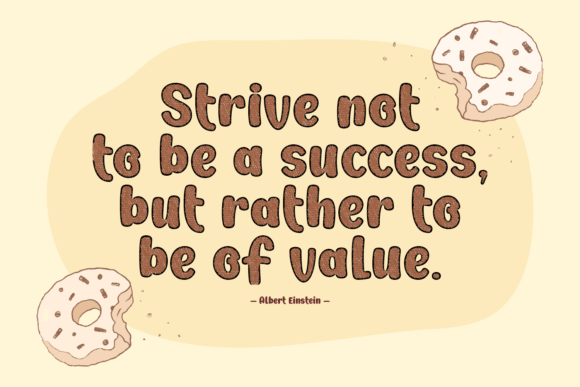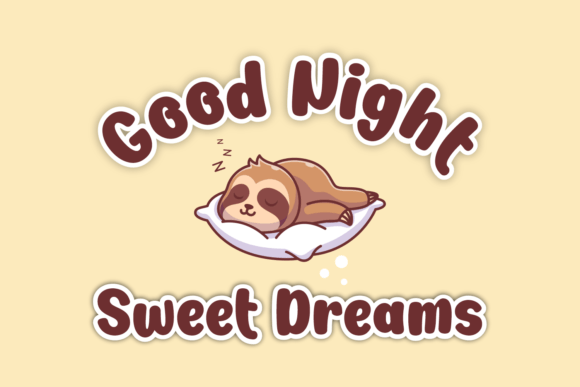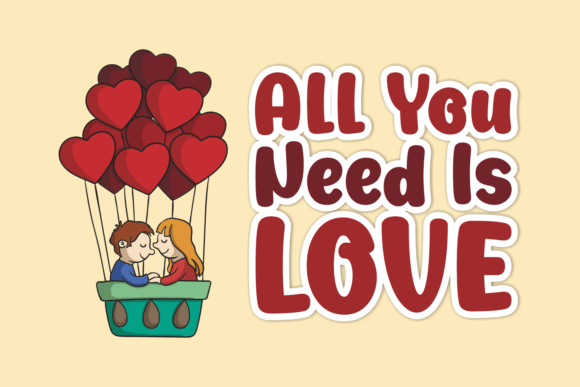
Introducing Brouny Macker Font: The Perfect Hand-Drawn Touch for Your Designs
In the world of digital design, sometimes a personal touch can make all the difference. That’s where the Brouny Macker font comes in – a charming, hand-drawn typeface that adds a playful and rustic feel to any project. Whether you’re a designer looking for a unique font to elevate your branding or a crafter seeking a distinctive style for your DIY projects, Brouny Macker is the perfect choice.
The Charm of Hand-Drawn Typography
Brouny Macker is more than just a font – it’s a piece of art. With its hand-drawn origins, this font exudes a sense of warmth and personality that’s hard to replicate with digital fonts. Each letter has been carefully crafted to give your designs a personal, handcrafted feel that’s sure to capture the attention of your audience. Whether you’re creating logos, product packaging, greeting cards, posters, or invitations, Brouny Macker adds a touch of organic charm that’s sure to make your designs stand out.
One of the best things about Brouny Macker is its versatility. This font works well in a variety of settings, from formal to informal, and can be used for both digital and print designs. Here are some of the ways you can use Brouny Macker to elevate your designs:
- Logos: Create a unique and memorable logo for your brand with Brouny Macker. Its hand-drawn feel gives your logo a personal touch that’s sure to resonate with your audience.
- Product Packaging: Add a touch of rustic charm to your product packaging with Brouny Macker. This font is perfect for artisanal products, handmade goods, and small-batch items.
- Greeting Cards: Create beautiful and personalized greeting cards with Brouny Macker. This font adds a touch of warmth and personality to any card.
- Posters: Make a statement with Brouny Macker on your posters. This font is perfect for promoting events, products, or services with a personal touch.
- Invitations: Create unique and eye-catching invitations with Brouny Macker. This font is perfect for weddings, parties, and other special events.
Perfect for DIY Projects and Artisanal Branding
Brouny Macker is especially suited for DIY projects and branding for artisanal products. If you’re a crafter, maker, or small business owner looking for a font that reflects your personal style, Brouny Macker is the perfect choice. This font adds a touch of organic charm to your designs, making it perfect for:
- Handmade products: Showcase your handmade products with Brouny Macker. This font adds a touch of personality to your branding and packaging.
- Artisanal goods: Elevate your artisanal goods with Brouny Macker. This font is perfect for small-batch products, craft foods, and specialty items.
- DIY projects: Add a personal touch to your DIY projects with Brouny Macker. This font is perfect for crafting, woodworking, and other handmade projects.
Why Choose Brouny Macker?
So why choose Brouny Macker over other fonts? Here are just a few reasons:
- Unique and distinctive: Brouny Macker is a one-of-a-kind font that’s sure to make your designs stand out.
- Hand-drawn charm: This font has a personal, handcrafted feel that’s hard to replicate with digital fonts.
- Versatile: Brouny Macker works well in a variety of settings, from formal to informal.
In conclusion, Brouny Macker is a charming hand-drawn font that’s perfect for designers and crafters looking for a personal touch. With its playful and rustic feel, this font adds a touch of organic charm to any design. Whether you’re creating logos, product packaging, greeting cards, posters, or invitations, Brouny Macker is the perfect choice. So why wait? Download Brouny Macker today and add a touch of handcrafted artistry to your designs!